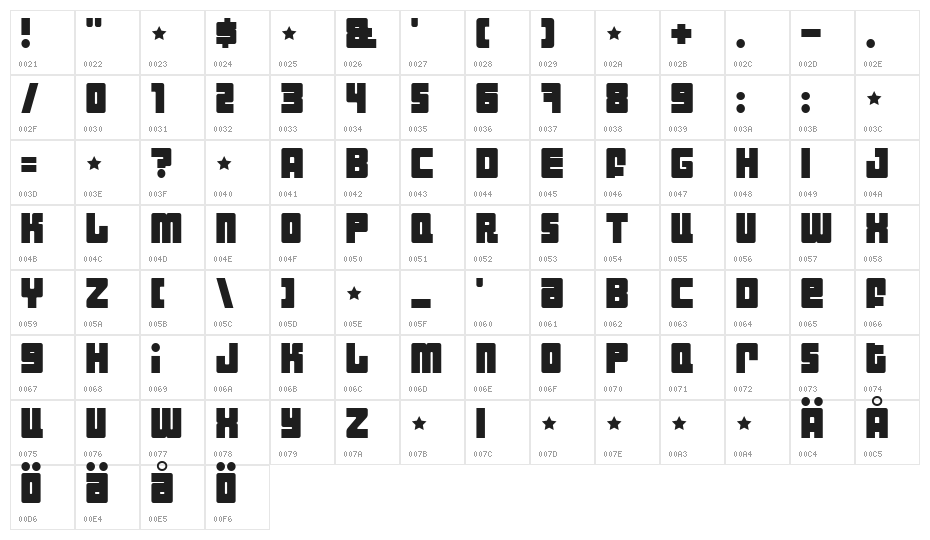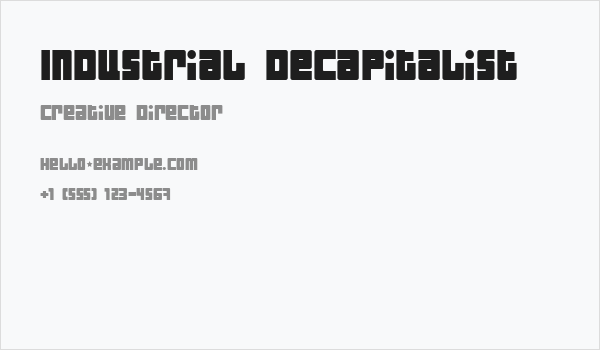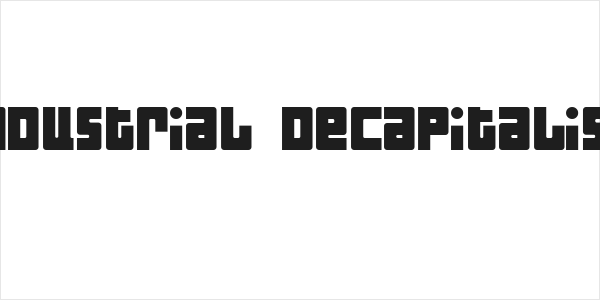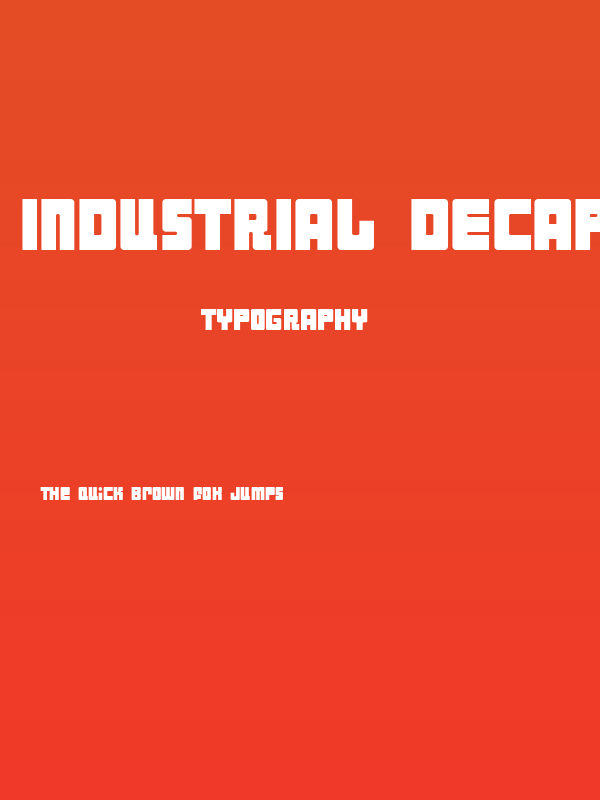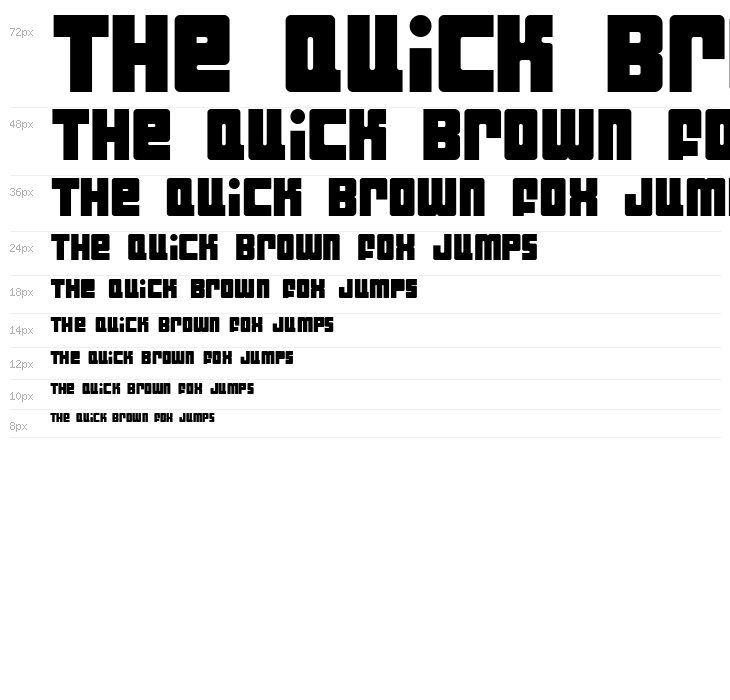
Industrial Decapitalist Font
Industrial Decapitalist Description
This font features a bold, industrial design with a strong geometric structure. The characters are blocky and robust, with a uniform thickness that conveys a sense of strength and stability. The uppercase and lowercase letters maintain a consistent style, with minimal curves and sharp angles. The numerals and special characters follow the same design principles, ensuring a cohesive look across all elements. This font is highly legible and makes a powerful visual impact, suitable for designs that require a bold statement.
| Overall Style | Industrial, Modern |
| Proposed Projects | Ideal for branding, posters, headlines, and any design requiring a strong, industrial aesthetic. |